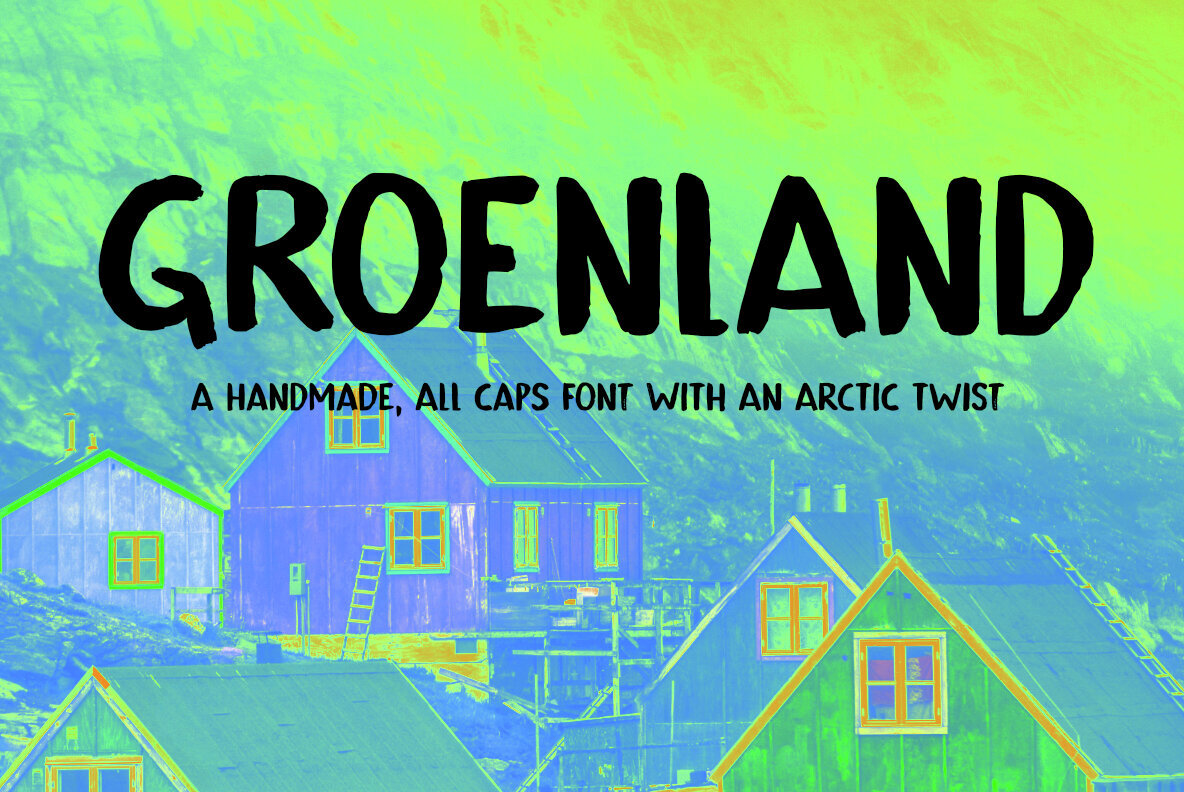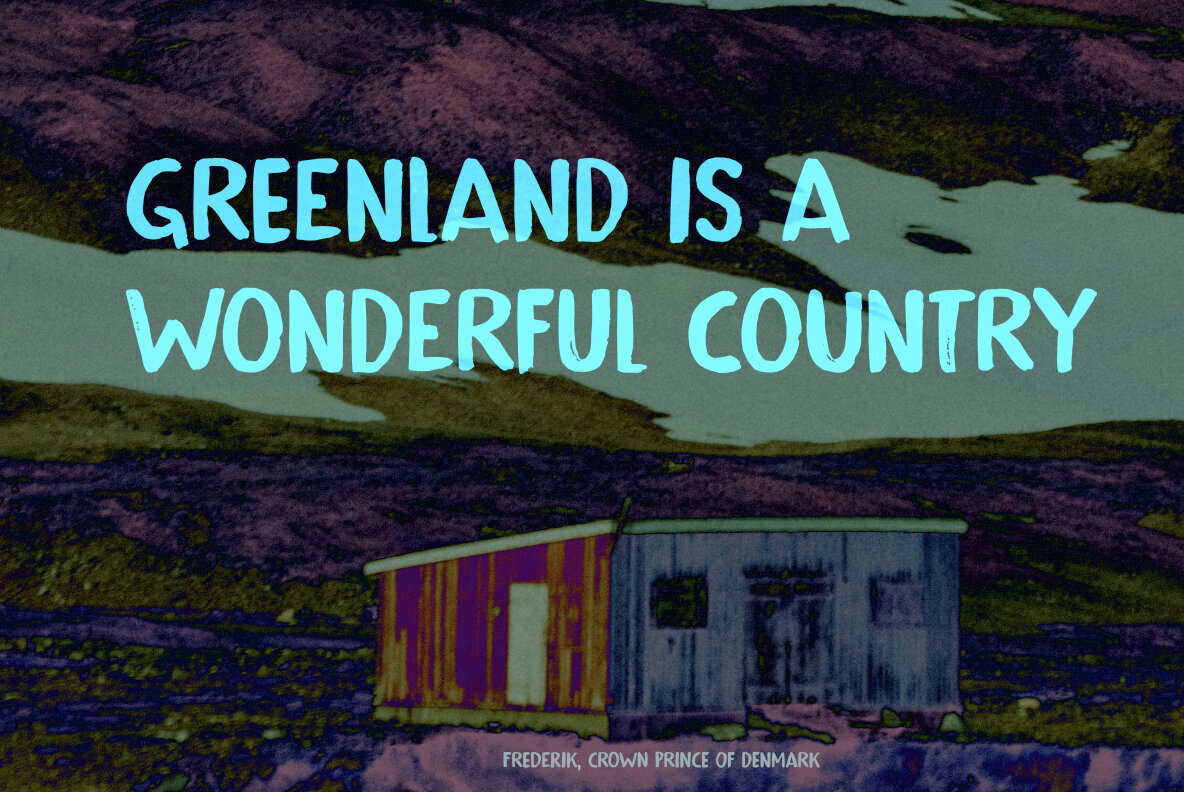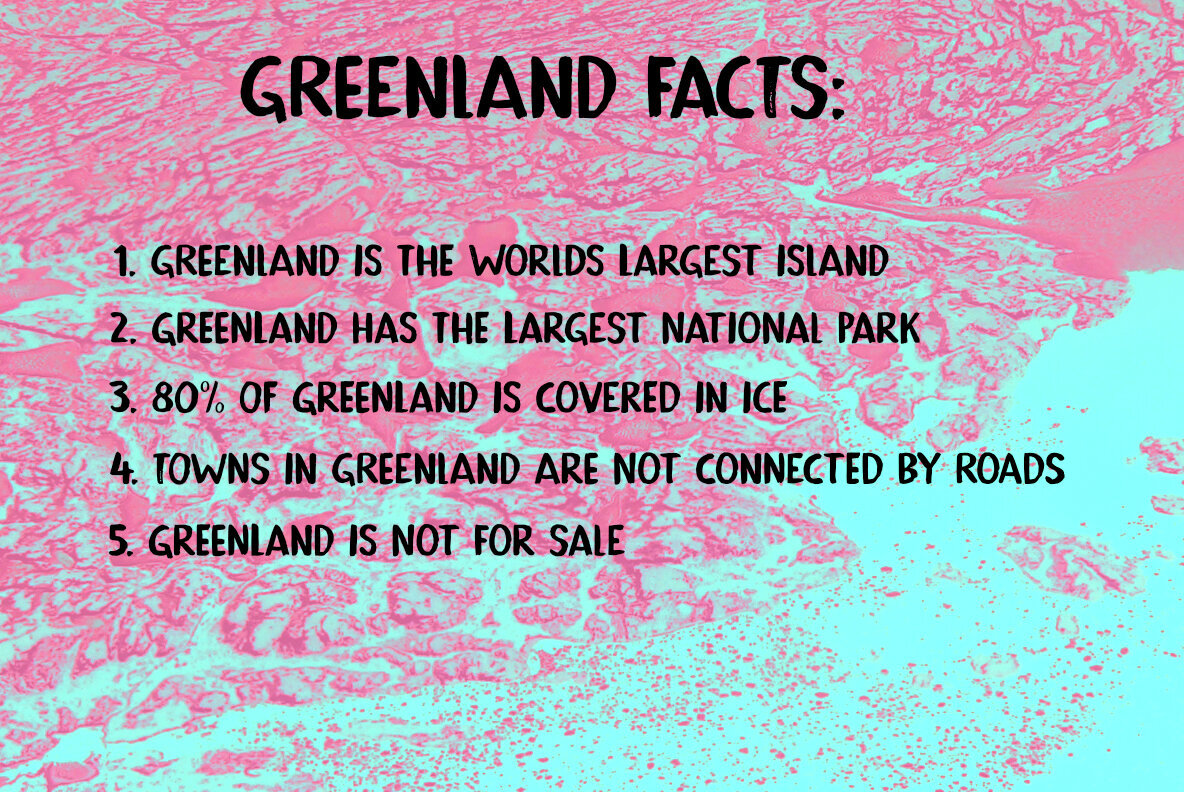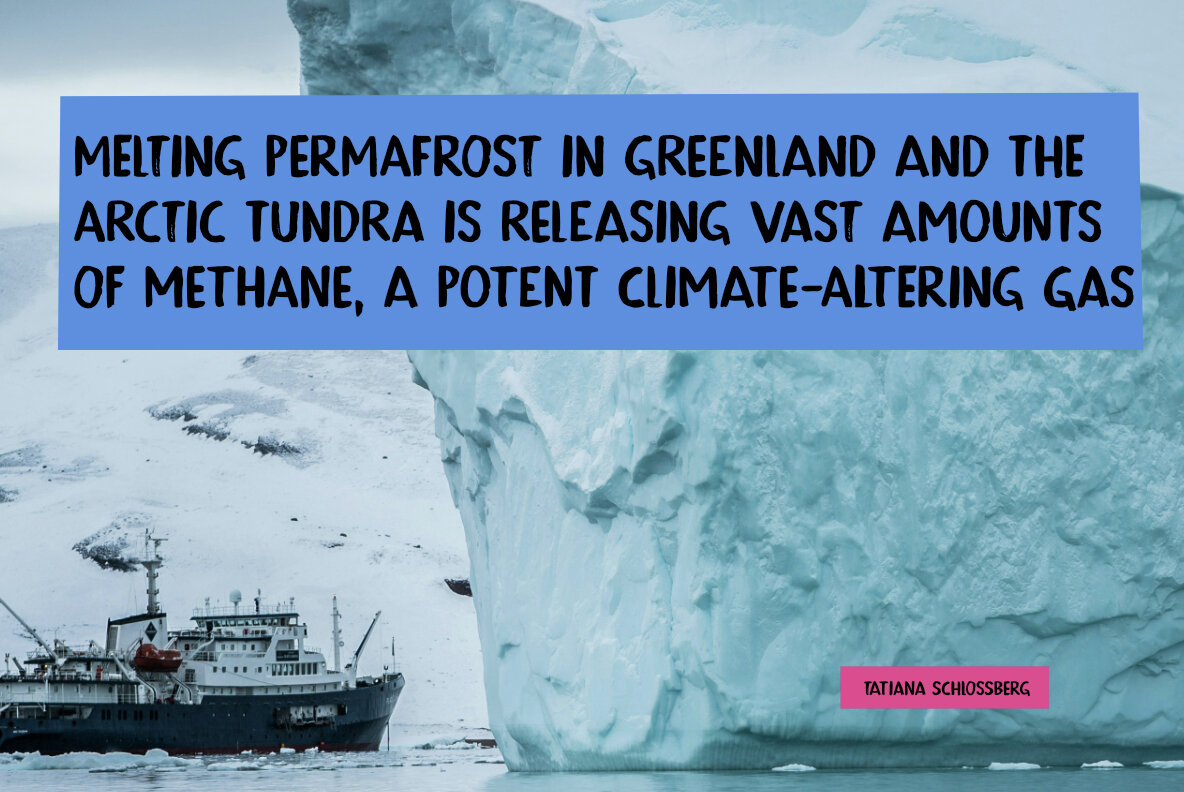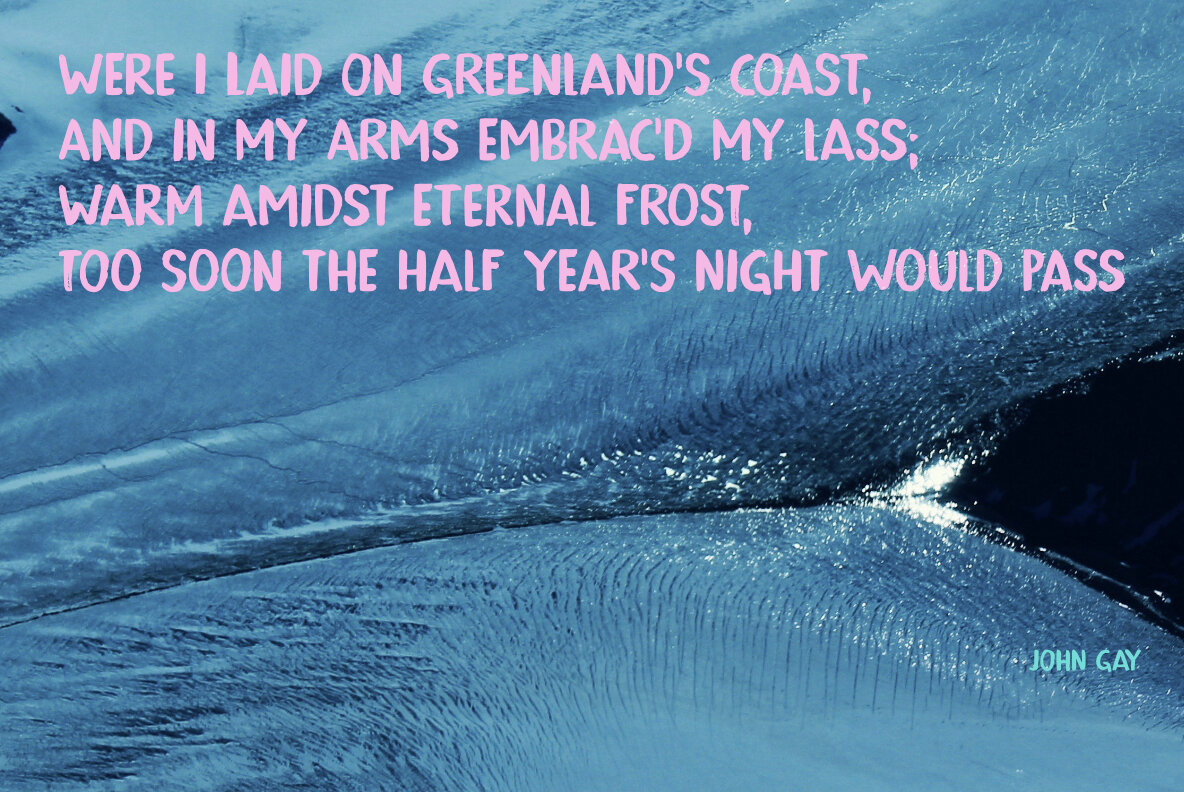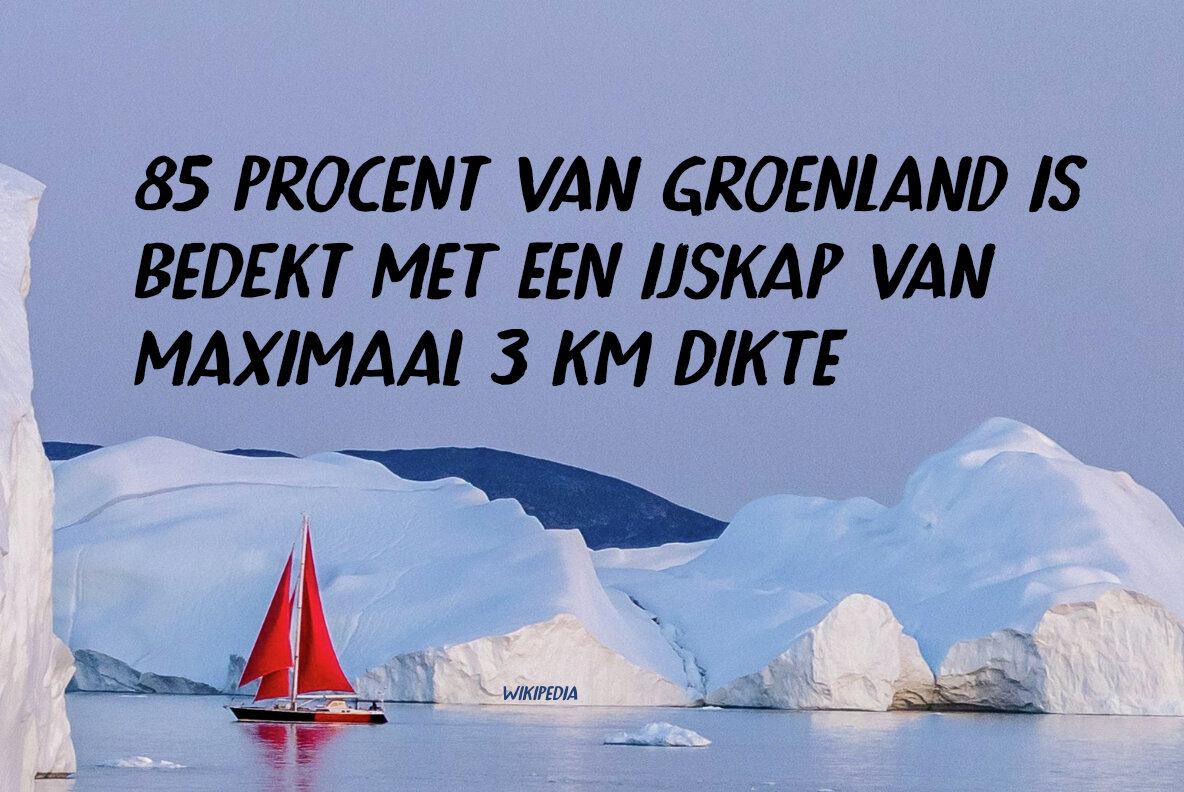
Groenland Font
Groenland is a hand-painted font inspired by the beauty and uniqueness of Greenland, whose name translates to "Green Land" in multiple languages. This font captures a rugged charm with its bold, eroded appearance, making it both striking and easily readable. Whether you're designing posters, enhancing websites, or developing product packaging, Groenland adds a distinctive touch to your projects.
Featuring extensive language support, Groenland ensures versatility across various languages and cultural design contexts. Additionally, it includes a set of automatically rotating alternates, providing you with diverse options to keep your text dynamic and engaging. Perfect for creating bold statements or signage, Groenland infuses your designs with character and originality.